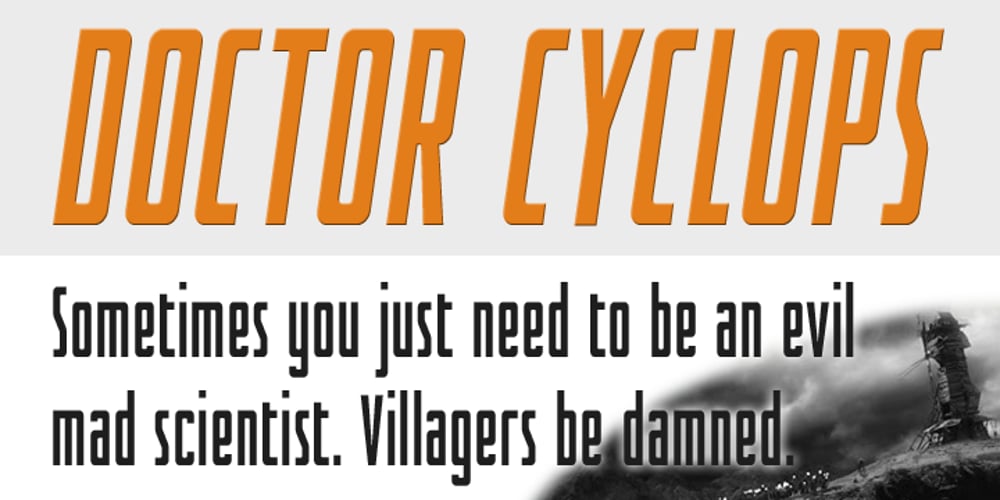
Doctor Cyclops Font Family was designed by Alec Julien and published by Haiku Monkey. Doctor Cyclops contains 2 styles and family package options. Doctor Cyclops, tall, thin, and strong, sits in his laboratory, plotting evil scientific deeds. The villagers, torches in hand, have gathered again at the base of his stone tower, shouting loudly, and breaking his concentration. “Igor!” he calls out to his intrepid assistant. “Get the boiling oil.” Igor nods and retreats to a different room. Doctor Cyclops tries to pick up his train of evil thought. The shouting of the villagers takes on an entire new tenor. Igor has completed his task. The Doctor smiles, and reaches for a test tube filled with glowing green liquid…